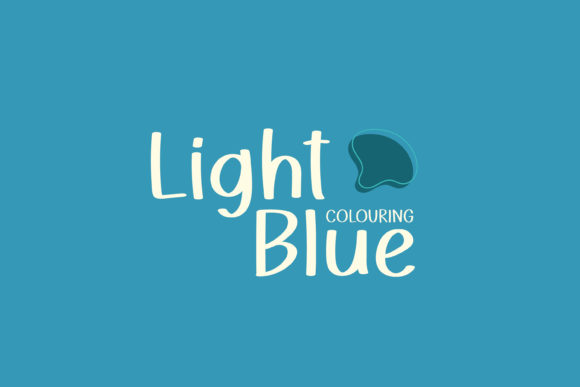
About Quanta Font
Quanta is a cute & bold handwritten font. Get inspired by its incredibly happy feel. Use this font to turn any design project into a standout!